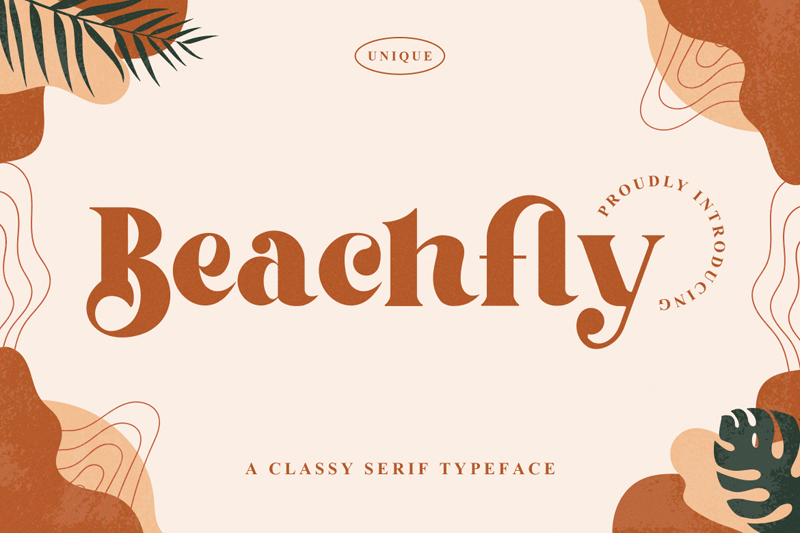
If you�re looking for a retro and unique font (One which will bring all sorts of happiness to any project) the Beachfly font is just for you. It combines a sense of classic, cuteness, elegance and vintage which makes it distinctive enough to give any project life and energy. It�s a gorgeous font which can be used beautifully for wedding invitations, eye-catching social media posts, cute greeting cards and much more. Full Version Download Here : https://typefactory.co/product/beachfly-classy-serif-typeface/ https://www.creativefabrica.com/designer/typefactory/ref/501262/ |